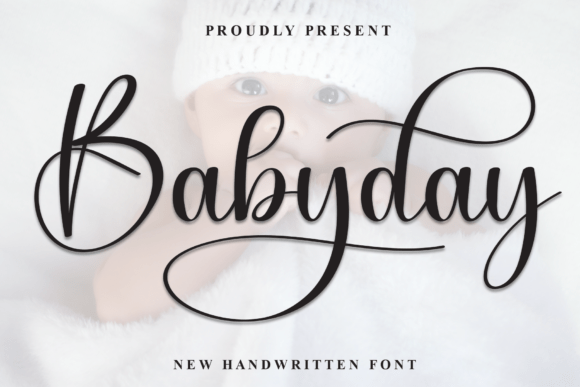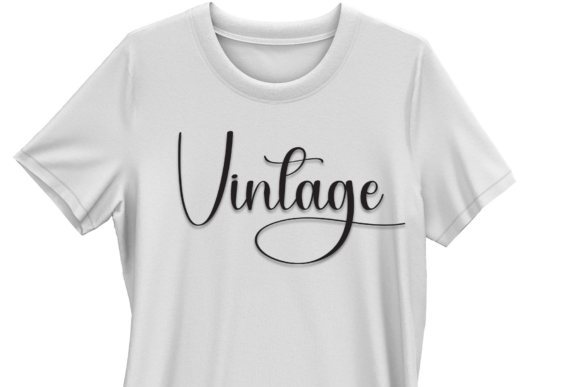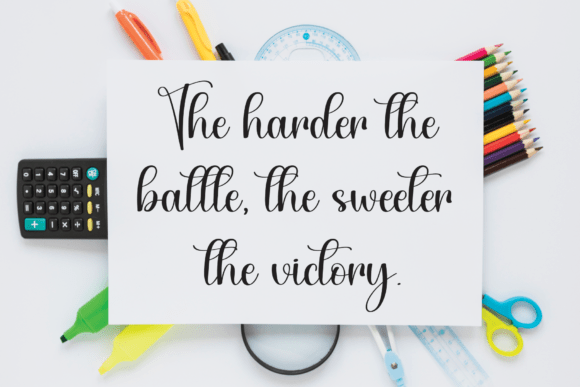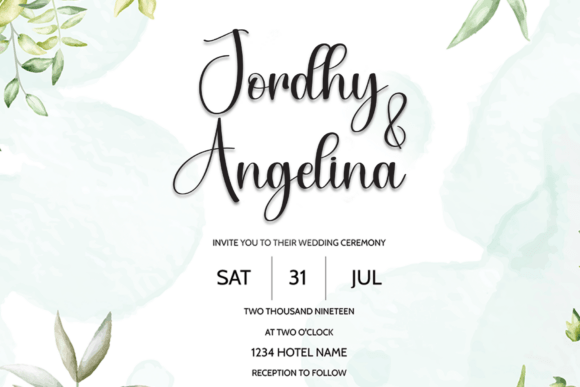
About the Babyday Font
Presenting Babyday Font, a unique and stylish typeface that will make your work stand out. Babyday is a beautifully flowing script font with a modern calligraphy touch. Its graceful curves and stylish flourishes create an elegant and sophisticated look, perfect for wedding invitations, branding, social media, and luxury projects. This font adds a touch of charm and refinement to any design!
Babyday Font Usage Examples
Babyday Font Example